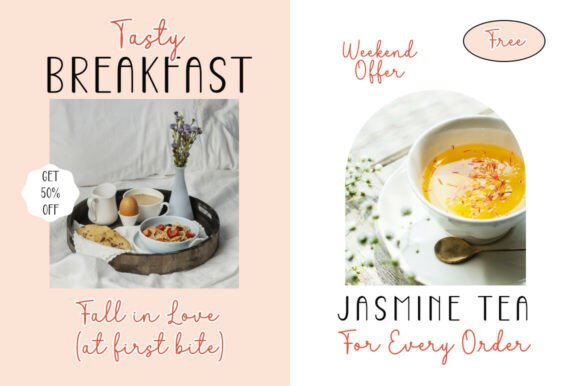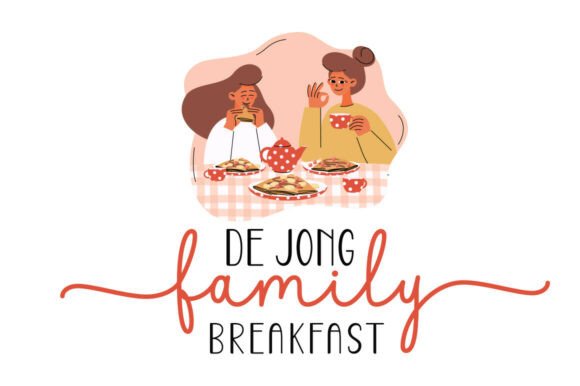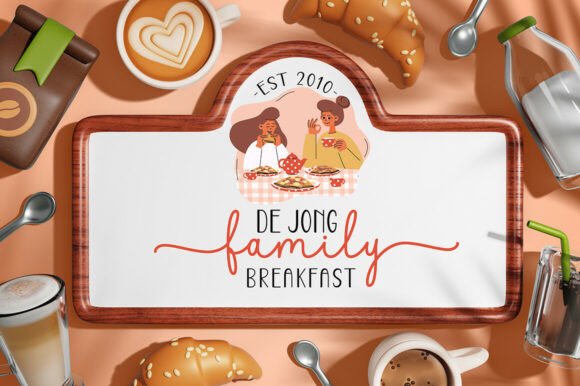
Introduction to Farmhouse Breakfast Duo Font
Farmhouse Breakfast is a handwritten font duo combining an elegant script and a clean sans serif for perfect visual harmony.
Each glyph was designed with consistent stroke weight and subtle organic flow, resulting in a natural yet refined appearance Farmhouse Breakfast works beautifully for branding, invitation cards, recipe books, farmhouse decor quotes, and lifestyle packaging.